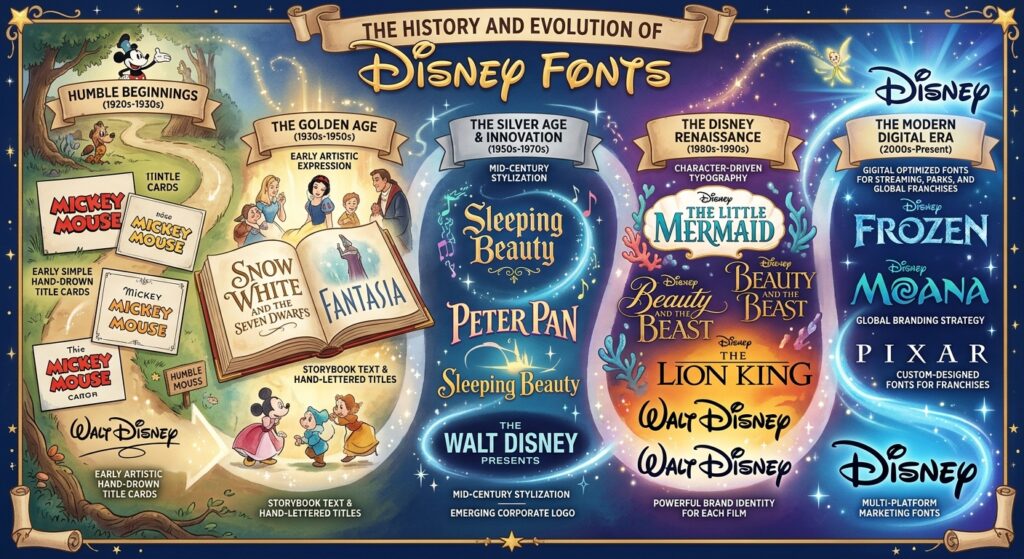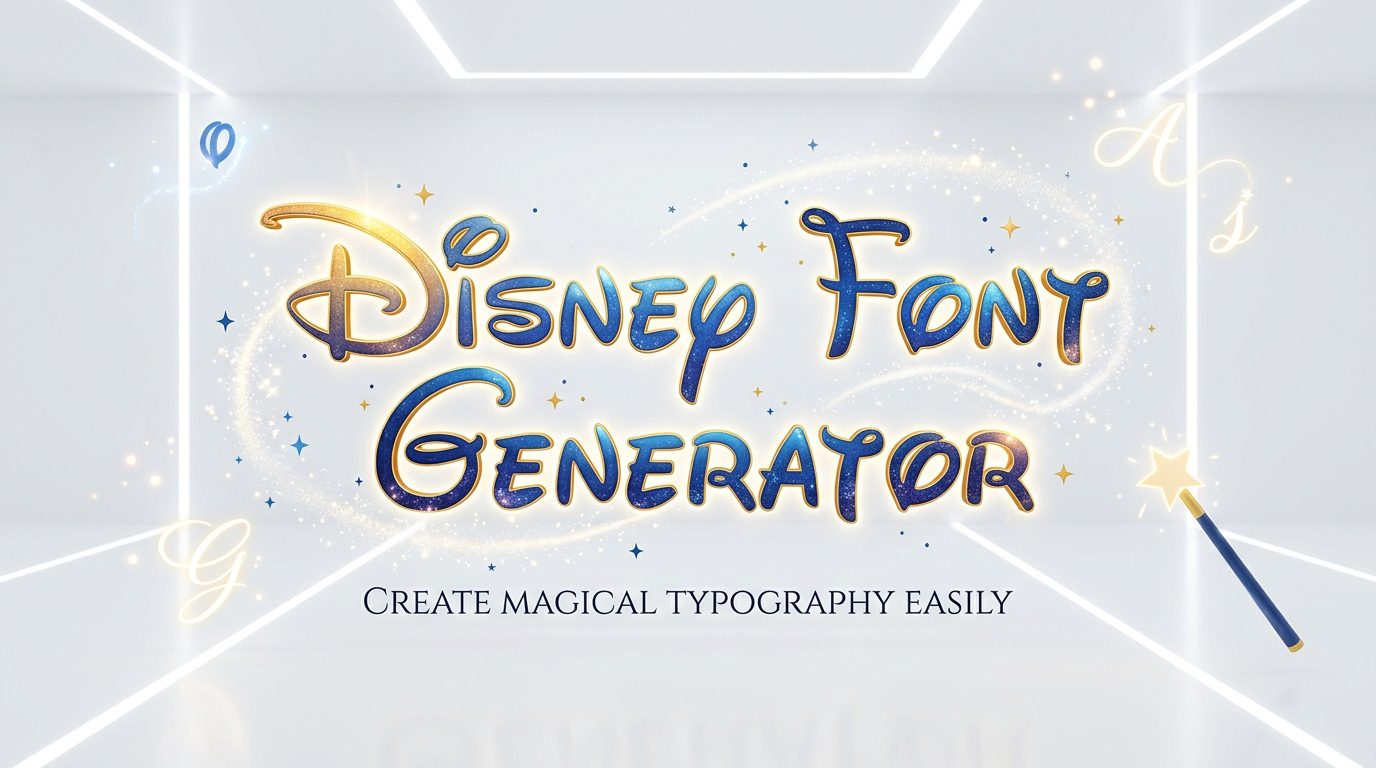
Disney Font Generator – Create Magical Disney-Style Text
A Disney Font Generator turns customized text into Disney-inspired lettering for creative projects, while Disney typography, Waltograph, Disney wordmark, and handwriting cues support recognizable visual identity. I test script character, keeping fan-made font separate from branding.
What matters most is context: castle imagery, storytelling, nostalgia, and personalized text can suggest Disney culture without copying protected marks. For digital art, I balance playful style, readability, and originality, keeping generated lettering intentional throughout.
What Is the Disney Font / Disney Font Generator?
A Disney font is less a single typeface than a family of lettering cues built around recognizable Disney typography. A Disney Font Generator turns typed words into themed graphics, combining script, cursive, and castle elements.
In practice, I treat the generator as a design tool rather than an official source: it applies Disney-inspired styling to custom text, supporting personalized artwork, social graphics, and nostalgic projects while preserving familiar visual identity.
History and Evolution of Disney Fonts
Disney typography evolved through recognizable lettering rather than one fixed typeface. Early Disney-associated typeface traits emphasized a recognizable D, sweeping capitals, and connected lowercase, while Walt Disney signature influences shaped the familiar script style overall.
Later, Disney logo development responded to digital reproduction, legibility, and screen display, turning branding into a flexible visual identity. The 2011 logo redesign refined the castle, supporting digital applications while retaining recognizable identity across typography.
Waltograph Font
Waltograph captures familiar handwriting through a flowing signature and recognizable script. In practice, I find its appeal comes from cursive forms that suggest nostalgia while keeping custom names, captions, and fan designs visually distinctive online.
For projects needing a fan-made font, Waltograph works best when lettering remains readable rather than overloaded. Its Disney-inspired fonts suit themed graphics, while personalized design benefits from restrained spacing and consistent shapes across layouts cleanly.
Types / Styles Of Disney Fonts
Disney font styles range from script lettering and handwritten typography to playful typography, each changing the personality of text. In practice, I find style selection matters most when matching a mood, audience, and visual identity.
Other styles lean toward recognizable branding, traditional lettering, or modern trends, while movie-inspired styles may emphasize fantasy and storytelling. Generator should offer font variation, allowing users to test visual recognition before settling on a favorite.
Why Disney Typography Feels Magical
Disney typography feels magical because familiar lettering triggers childhood memories while storytelling and fantasy give each character visual meaning. In my experience, even simple custom graphics gain warmth when the Disney castle appears nearby visually.
That effect is not purely nostalgic; recognizable lettering supports emotional recognition, while visual language connects movies, theme parks, and personal expression. I often notice this balance makes personalized graphics feel polished without losing playful character.
The 2011 Logo Redesign
The 2011 redesign favored restraint: Disney simplified the logo presentation and retained the wordmark, strengthening logo evolution while supporting modern typography. In practice, that shift made the identity easier to recognize across expanding Disney properties.
From my design perspective, the change matters because cultural identity can survive simplification. The streamlined mark connected storytelling with recognizable lettering, letting the castle and wordmark carry more brand recognition without extra clutter visually today.
The Disney Castle Icon
The Disney castle carries castle imagery beyond decoration, pairing recognizable style with visual language. In my experience, this icon anchors Disney typography, adds personalization, and gives custom graphics a polished identity without overcrowding lettering. Distinct.
Using castle selection and castle positioning can shift emphasis, while automatic positioning preserves balance. Digital graphics, birthday invitations, and social media graphics gain character when the castle supports, rather than competes with, customized text consistently.